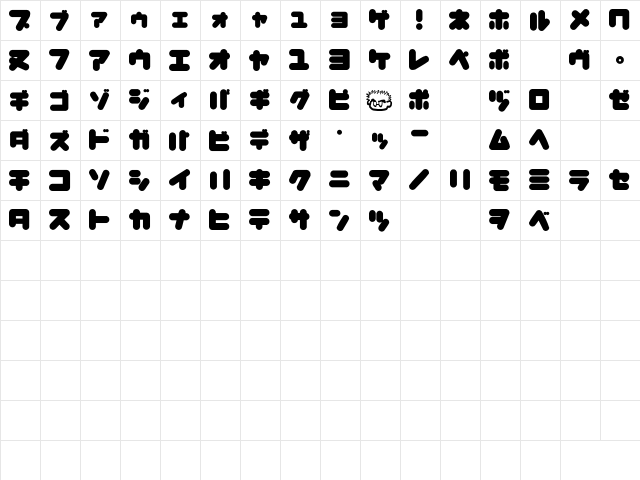
copike kana Regular
Design Context for copike kana Typeface
copike kana offers clean, dependable letterforms without strong stylistic allegiance, making it a practical choice for designers who need flexibility.